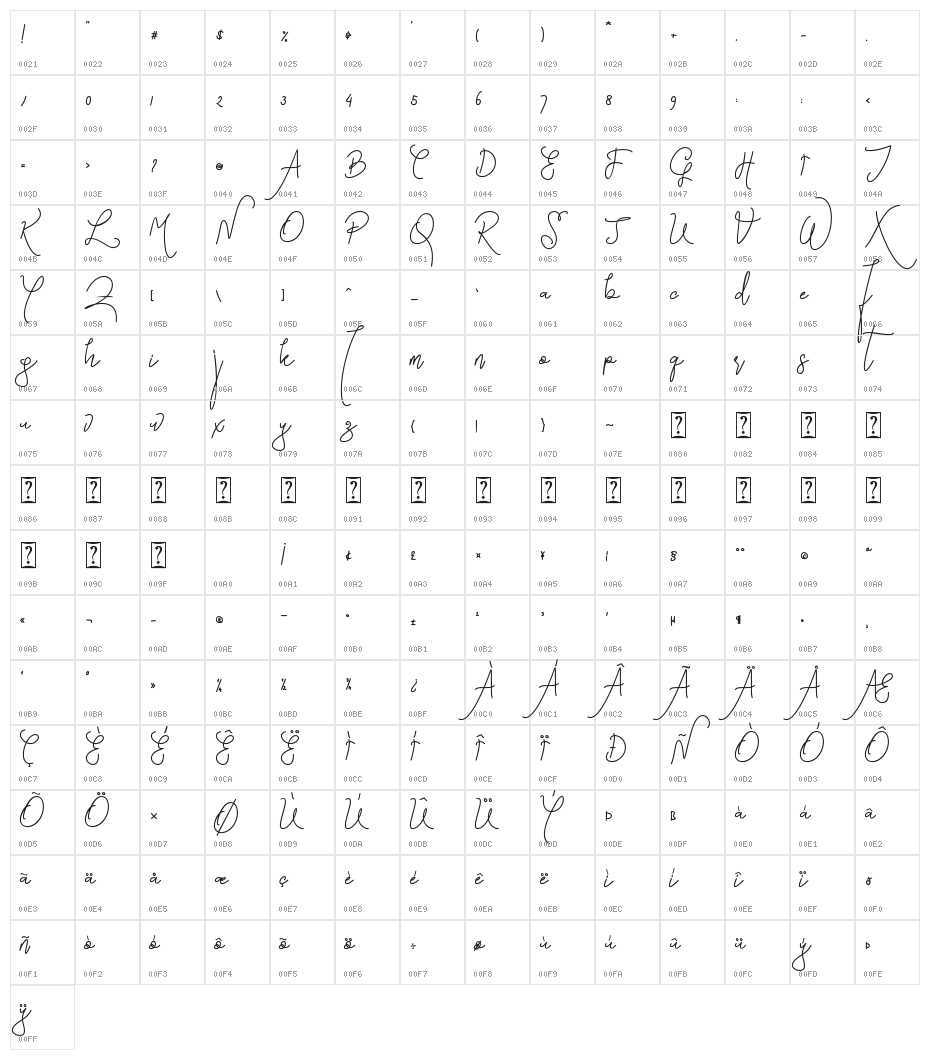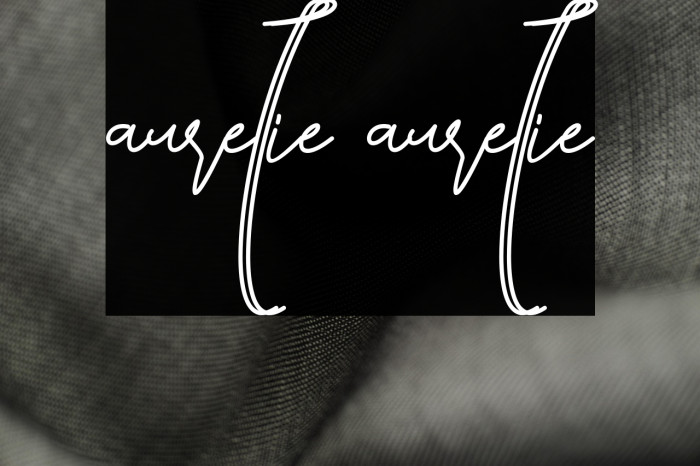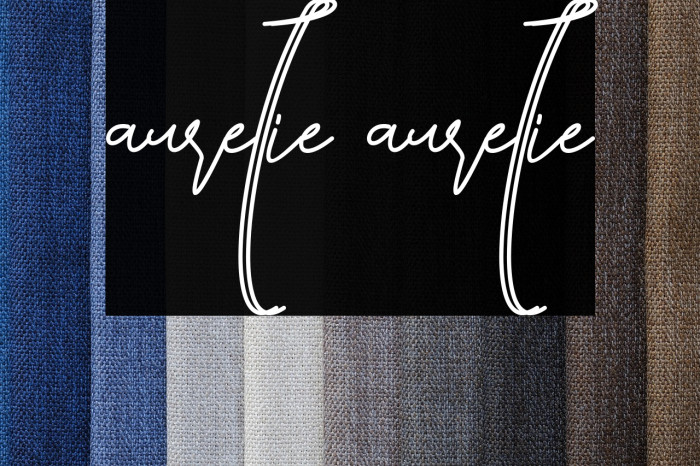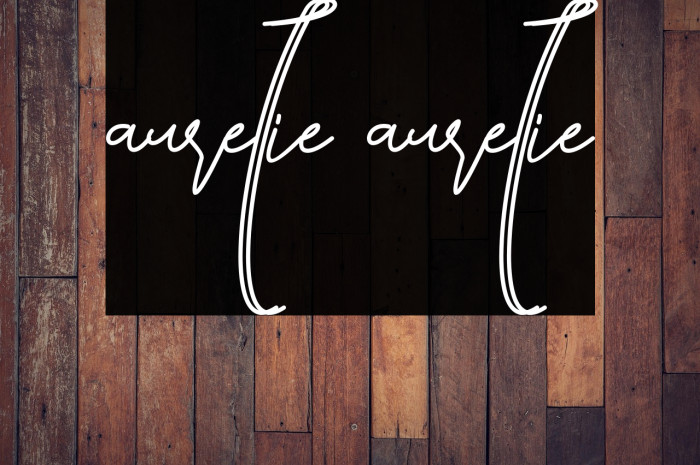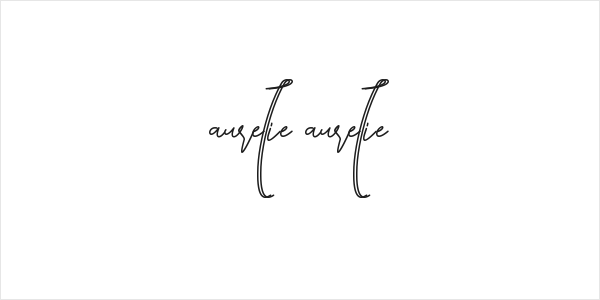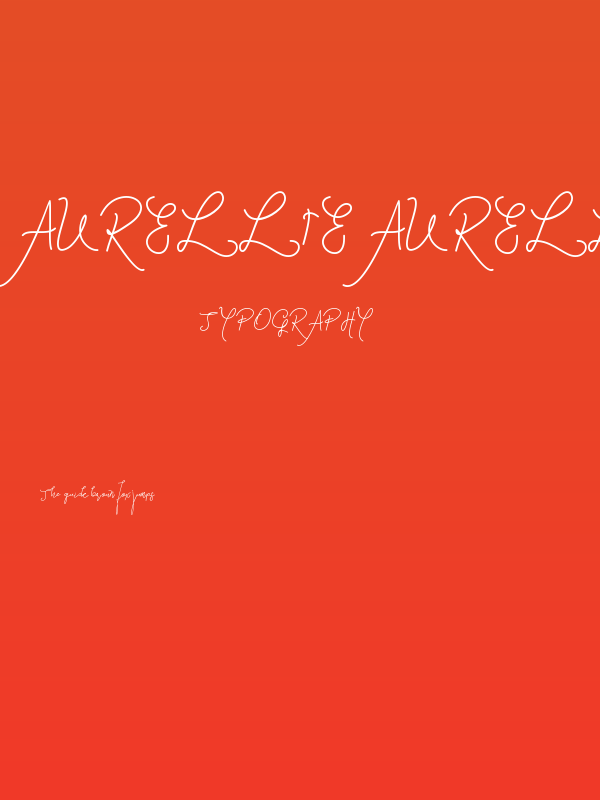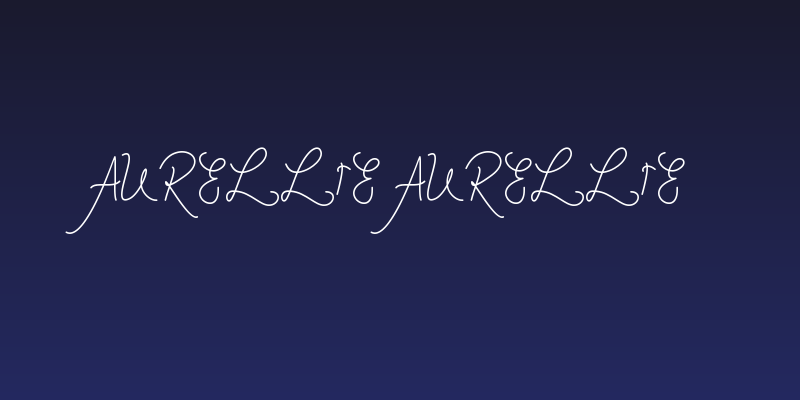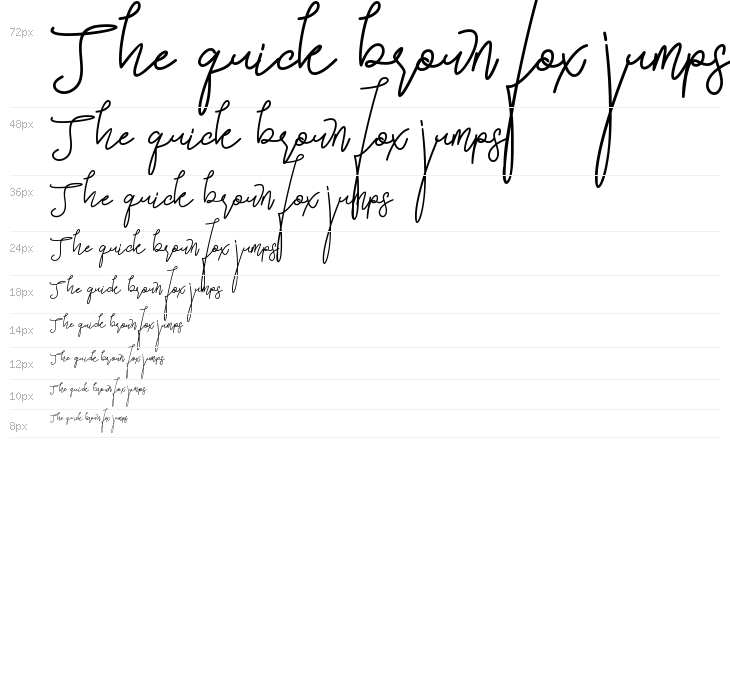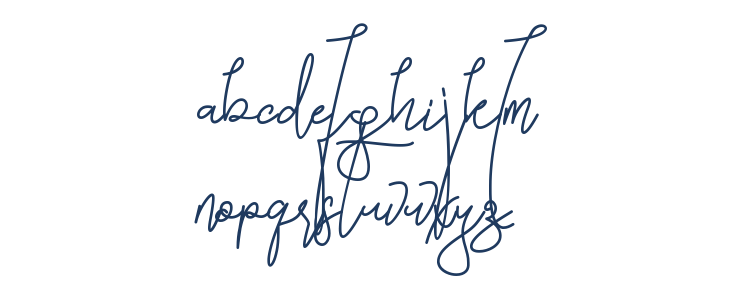
aurellie Font
aurellie Description
This font features an elegant and flowing script style, characterized by its smooth, cursive strokes and artistic flair. The uppercase letters exhibit a graceful, looping design, while the lowercase letters maintain a consistent fluidity, enhancing the overall aesthetic appeal. The numerals and special characters are crafted with the same attention to detail, ensuring a cohesive look throughout. This font's delicate lines and sophisticated curves make it ideal for projects that require a touch of elegance and refinement.
| Overall Style | Elegant, Artistic |
| Proposed Projects | Ideal for wedding invitations, elegant branding, personal stationery, and artistic projects. |